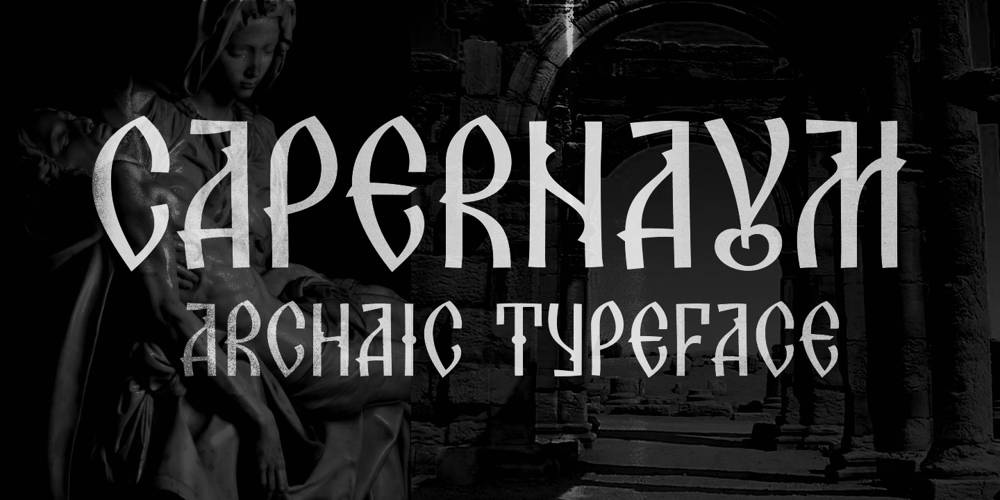
Capernaum
Capernaum font
Capernaum Font Family was designed by Bogdan Balatchi and published by DePlictis Types. Capernaum contains 1 styles and family package options. Inspired from archaic slavonic calligraphy, with a powerfull old, but fresh and spontaneous look, CAPERNAUM is a display font designed in 2024 by Bogdan Balatchi for impactful, delicate and original headlines that has to do with historical or religious content. It covers most of Latin languages diacritics and also Cyrillics and Greek, so this font would be a valuable premium asset for designers that have to deal with historical and religious content in their projects.